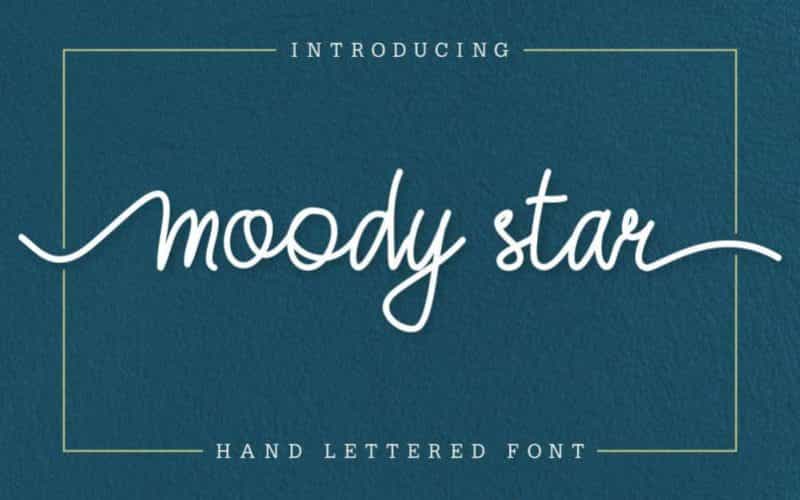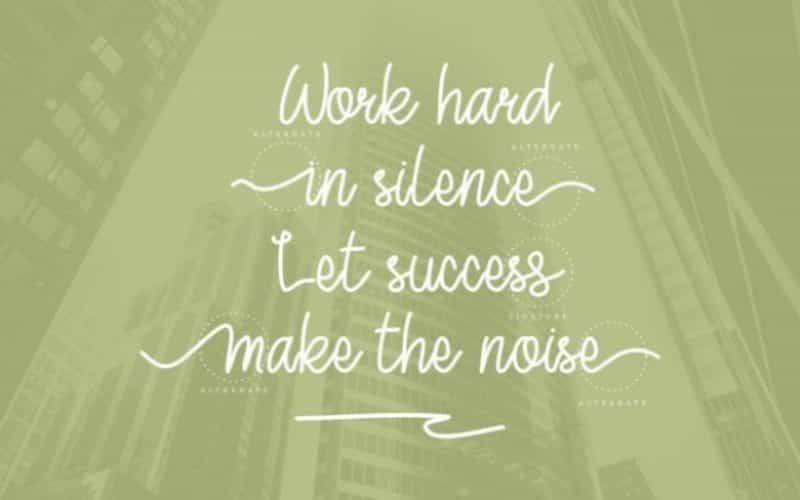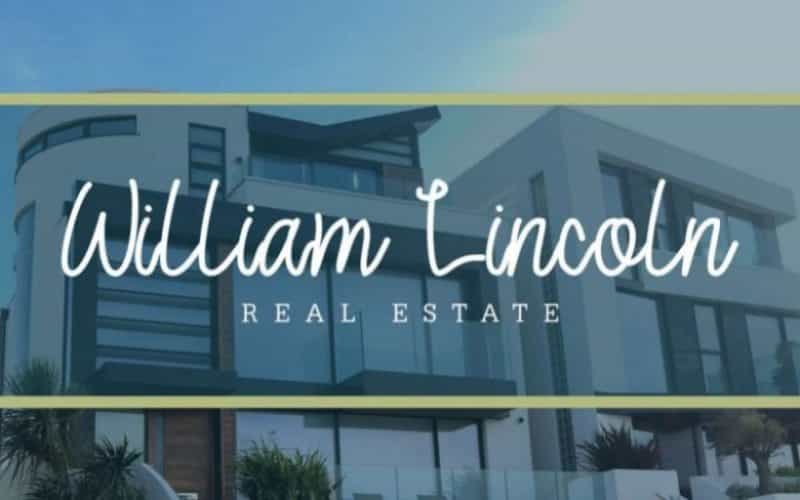
Discover Moody Star Handwritten Font, part of the Commercial Handwritten Monoline collection—a versatile and unique font perfect for adding a personal touch to your projects. Download it for free and enjoy crafting designs with style, from invitations to social media posts. This font is available exclusively for personal use, giving you the freedom to create without limits. Unlock your creativity with Moody Star Handwritten Font today!
Moody Star is a unique handwriting script font with the style of manual pen. This font has a beautiful characters set, which is perfectly organized with the right spacing and kerning. This font theme style will be a mix of elegant, vintage, stylish and sophisticated styles. You can never get this font anywhere else, the Moody Star Script Handwriting Font.